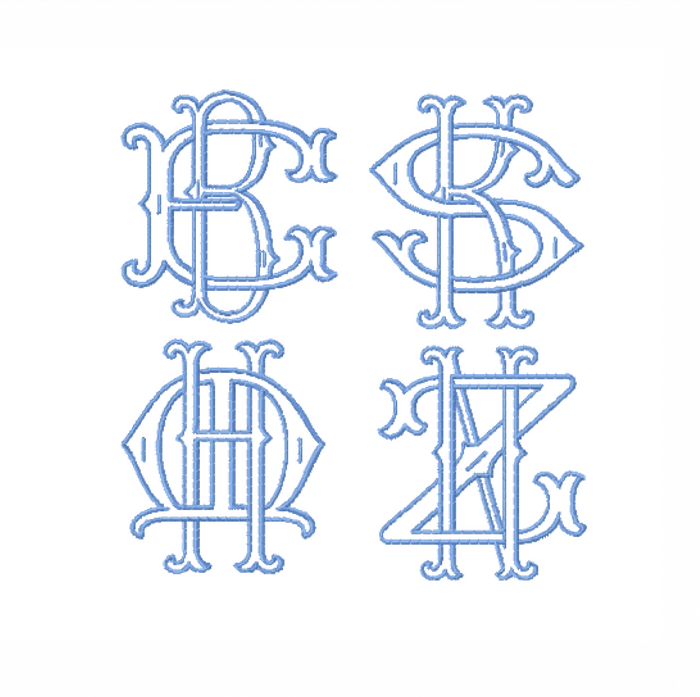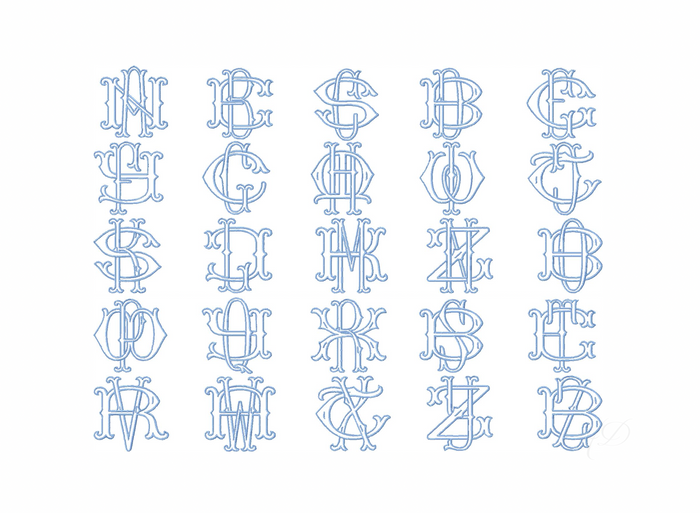
Two Type Fishtail Embroidery Font Package for 4x4 Hoops
Elevate your crafting projects with our Two Type Fishtail Outline Satin Embroidery Font Package, designed specifically for 4x4 hoops. This package includes a complete set of 26 unique letters, each beautifully crafted in a satin stitch finish. Every letter in the font set measures 3.6” tall, giving you an elegant and interwoven look for your monogramming needs.